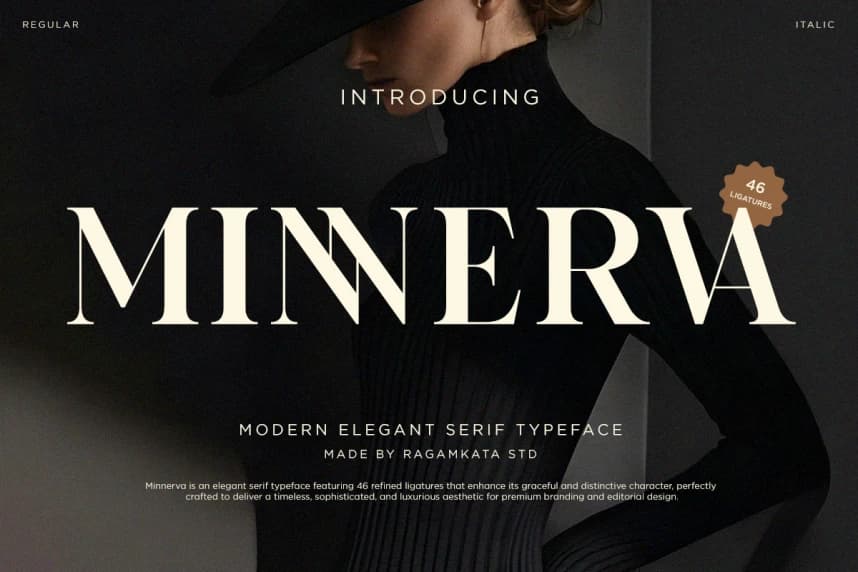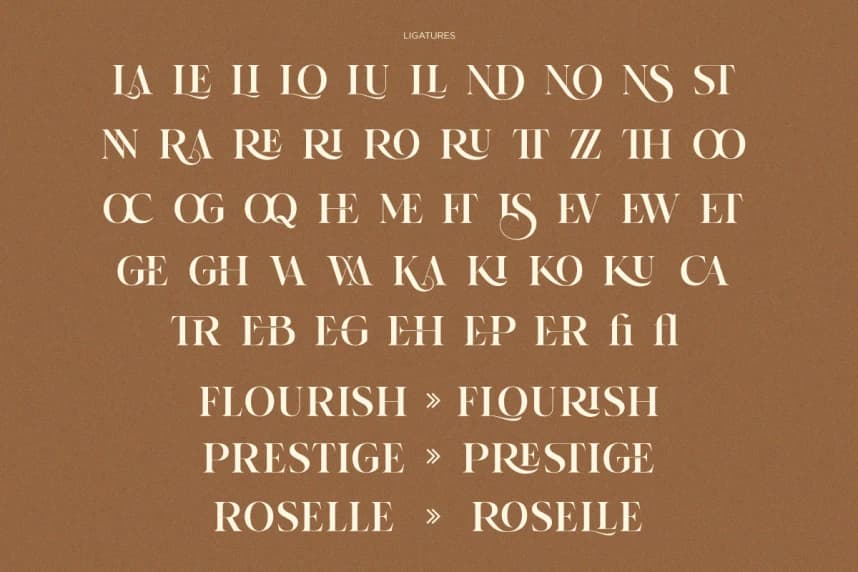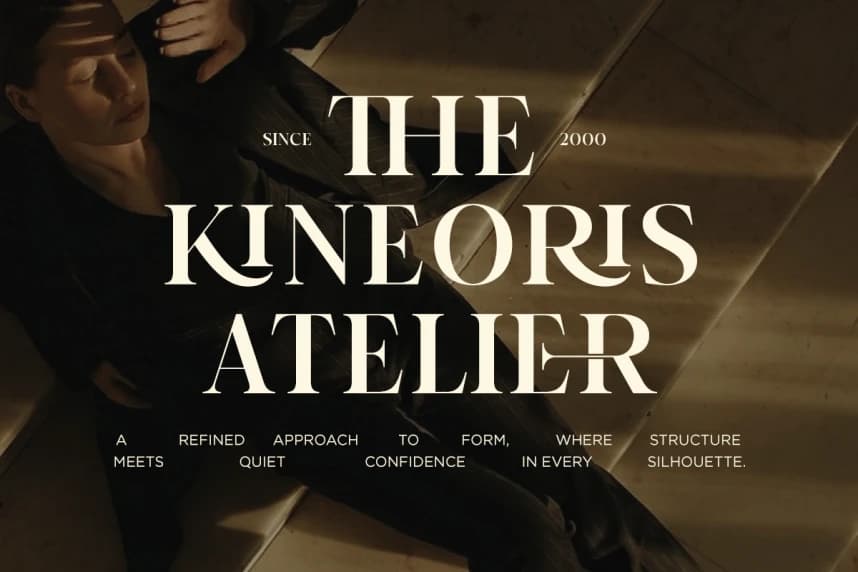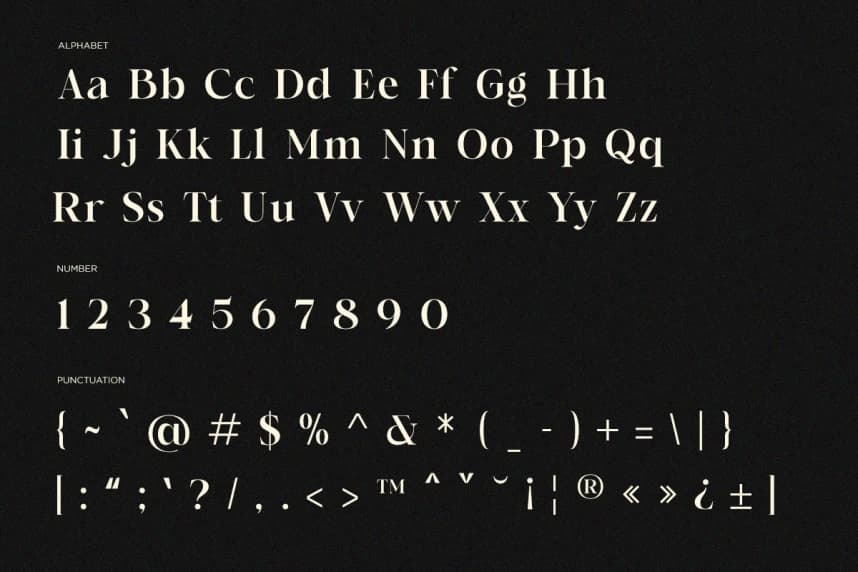
Minnerva Font
Minnerva Font is a modern elegant serif typeface designed to embody sophistication and timeless beauty. With its refined letterforms, high contrast strokes, and graceful proportions, it delivers a luxurious aesthetic that feels both classic and contemporary